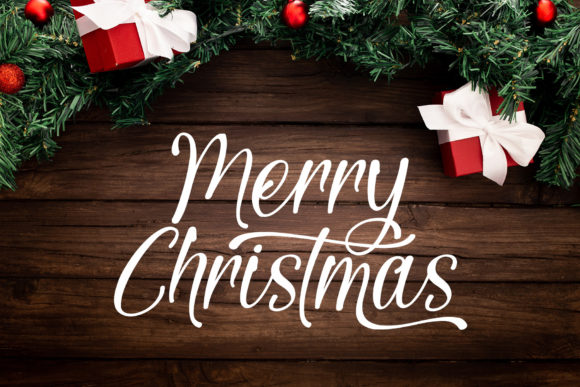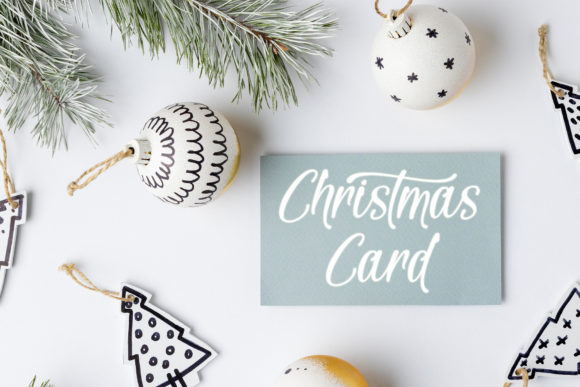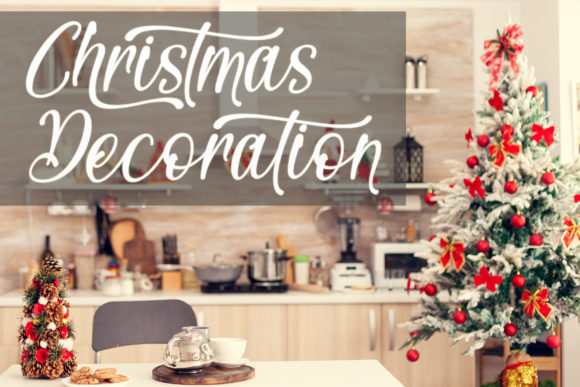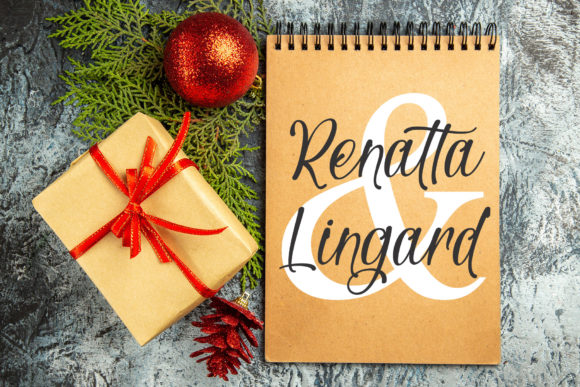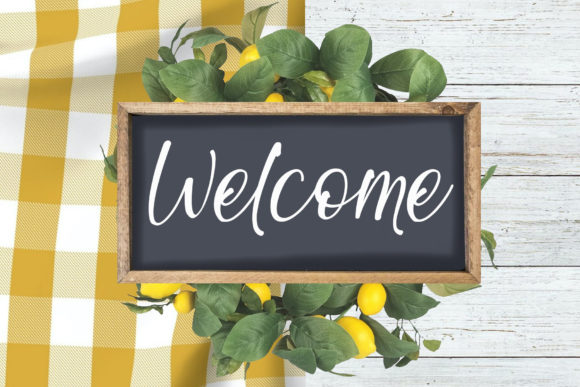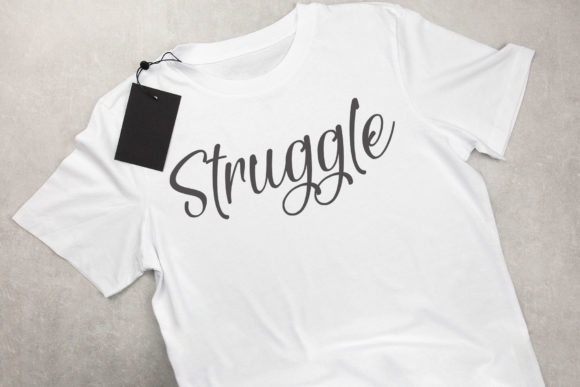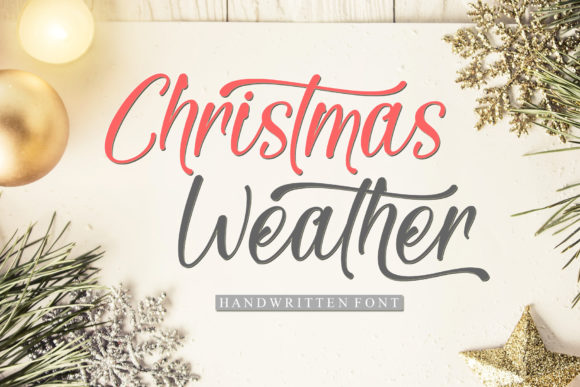
Christmas Weather Font: A Stylish and Elegant Script for Your Holiday Designs
As the holiday season approaches, designers and crafters are on the lookout for the perfect fonts to add a touch of magic to their Christmas designs. If you’re looking for a font that exudes elegance and sophistication, look no further than the Christmas Weather Font. This stylish and incredibly elegant script font is perfect for adding a handwritten touch to your holiday designs, from wedding invitations to greeting cards, quotes, and more.
What is Christmas Weather Font?
Christmas Weather Font is a beautiful script font that features a unique and elegant design. Its flowing lines and cursive strokes give it a warm and inviting feel, making it perfect for a wide range of design applications. Whether you’re creating wedding invitations, thank you cards, or holiday greeting cards, this font is sure to add a touch of class and sophistication to your designs.
Key Features of Christmas Weather Font
• Elegant Script Design: Christmas Weather Font features a beautiful script design with flowing lines and cursive strokes, giving it a warm and inviting feel.
• Handwritten Touch: This font is perfect for adding a handwritten touch to your designs, making them look more personal and unique.
• Versatile: Christmas Weather Font can be used for a wide range of design applications, including wedding invitations, thank you cards, quotes, greeting cards, logos, business cards, and more.
• Easy to Read: Despite its elegant design, Christmas Weather Font is easy to read, making it perfect for use in body text as well as headings.
Uses for Christmas Weather Font
Christmas Weather Font is a versatile font that can be used for a wide range of design applications. Here are some ideas to get you started:
• Wedding Invitations: Add a touch of elegance to your wedding invitations with Christmas Weather Font.
• Thank You Cards: Use Christmas Weather Font to create beautiful and personalized thank you cards for your loved ones.
• Holiday Greeting Cards: Create stunning holiday greeting cards with Christmas Weather Font, perfect for Christmas, New Year’s Eve, and other winter holidays.
• Quotes and Posters: Use Christmas Weather Font to create inspiring quotes and posters that feature a touch of elegance and sophistication.
• Logos and Branding: Use Christmas Weather Font to create a unique and memorable logo for your business or brand.
Tips for Using Christmas Weather Font
Here are some tips for using Christmas Weather Font in your designs:
• Pair with Other Fonts: Pair Christmas Weather Font with other fonts to create a unique and interesting contrast.
• Use in Headings and Titles: Use Christmas Weather Font in headings and titles to add a touch of elegance and sophistication to your designs.
• Experiment with Colors: Experiment with different colors to find the perfect combination that complements your design.
Christmas Weather Font is a stylish and incredibly elegant script font that’s perfect for adding a handwritten touch to your holiday designs. With its flowing lines and cursive strokes, this font is sure to add a touch of class and sophistication to your designs. Whether you’re creating wedding invitations, thank you cards, or holiday greeting cards, Christmas Weather Font is a great choice. So why wait? Download Christmas Weather Font today and start creating stunning holiday designs!